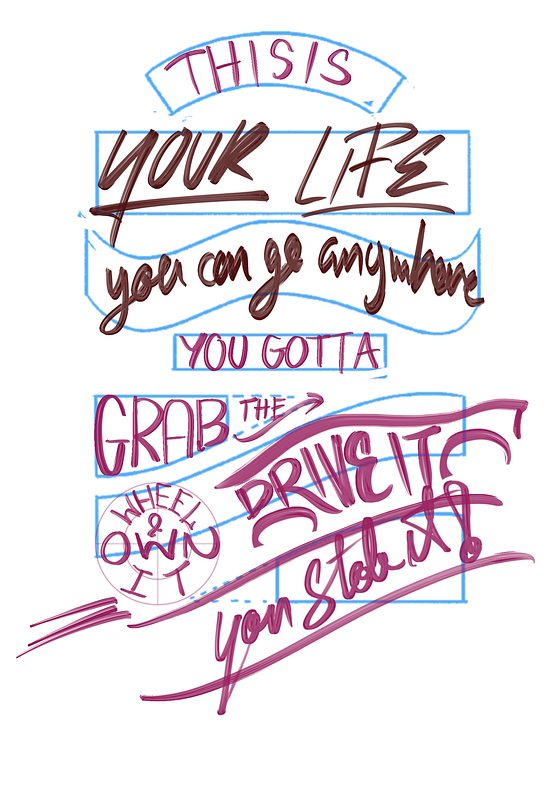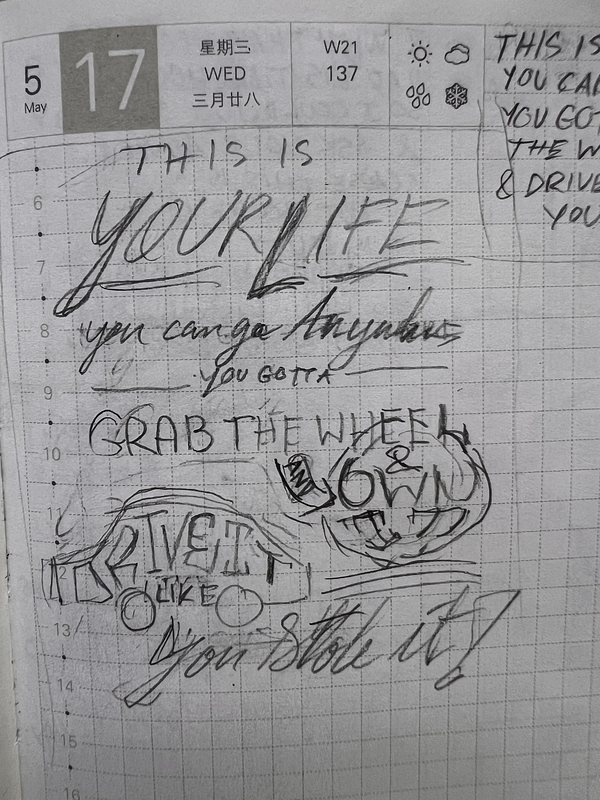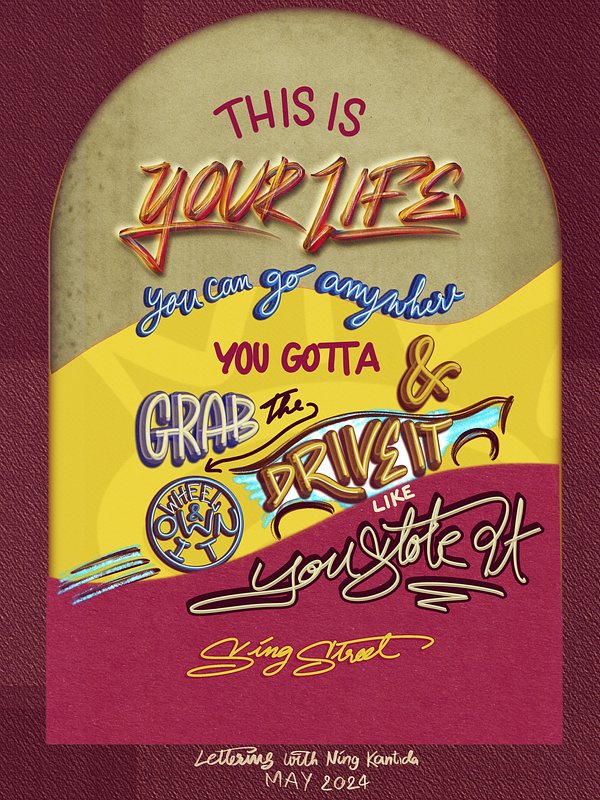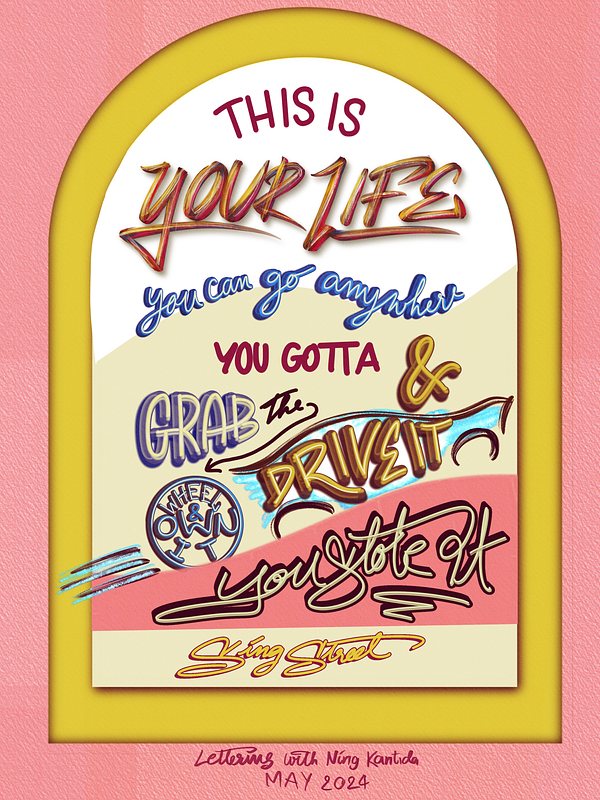
My Lettering Design for Drive It Like You Stole It by Sing Street Movie
The Inspiration
The movie “Sing Street” is a delightful mix of coming of age, music, rock band passion, romance, and friendship—truly a gem. But the best part of this movie is the soundtrack!!
I highly recommend it to anyone who hasn't watched it yet.
The song "To Find You" from its soundtrack album stole my heart. But as much as I loved "To Find You," I couldn't resist the urge to experiment with the energetic vibes of "Drive It Like You Stole It" for lettering. I liked the message of not wasting your life, and just grasping every moment of it!!
This is your life, you can go anywhere You gotta grab the wheel and own it And drive it like you stole it Roll it, this is your life, you can be anything You gotta learn to rock and roll it You gotta put the pedal down And drive it like you stole it And drive it like you stole it
The Process
The idea of incorporating the song's lyrics into a car-themed lettering piece sparked my imagination. The initial sketch had promise, but as I progressed to digitizing it, I realized the design wasn't quite aligned with the song's rebellious spirit. The car I drew didn't quite scream 'stolen' ride, as the song implied. So, I transformed the design into a sleek sports car and adjusted the composition to portray movement uphill. Also, I experimented with a new technique on the words "Your Life" and I dig it! Gonna try more of that in my future projects.
Lessons learned: I found myself getting carried away with 3D lettering, which ended up disrupting the overall harmony of the design. And my color choices? Not my best work. I should invest some time in learning color theory to step up my design game.